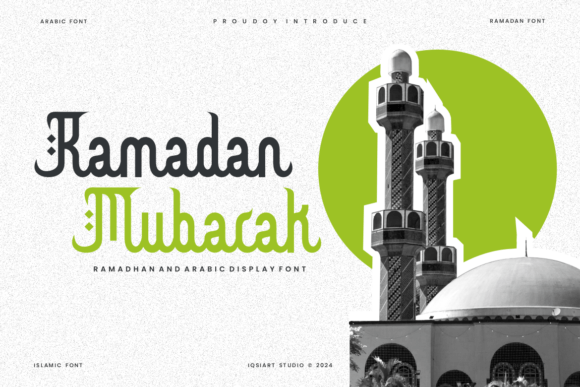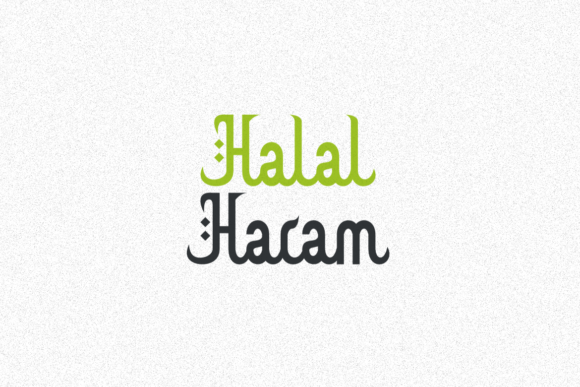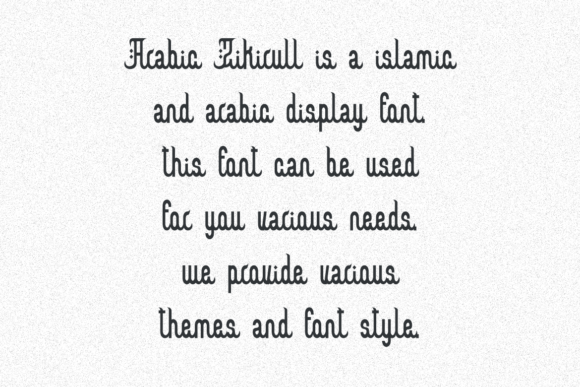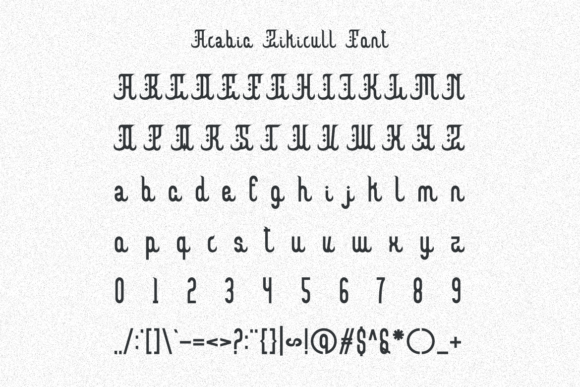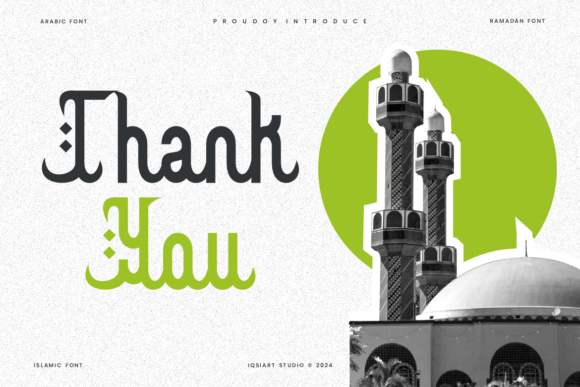
Introduction to Arabic Zikirull Font
Arabic Zikirull is a lovely and timeless Arabic decorative font.
Key Features of Arabic Zikirull Font
Why Choose Arabic Zikirull Font?
Arabic Zikirull Font offers exceptional quality and versatility, making it a valuable addition to your design toolkit. Whether you’re creating for personal projects or commercial use, Arabic Zikirull Font delivers professional results.